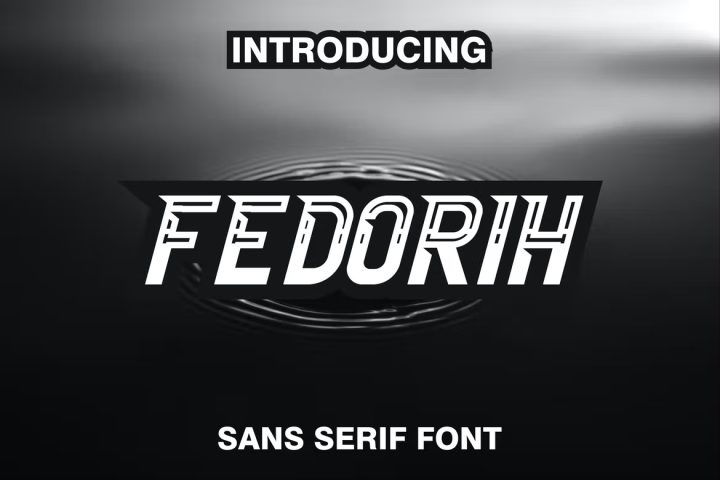
Fedorih Font
Introducing our new product Fedorih Font – Modern Font
Fedorih Font- Modern Font is a bold and authentic display font. The font is suitable for any branding project like logo, t-shirt printing, esport, and many more. outstanding in a wide range of contexts.